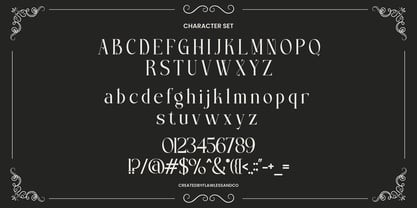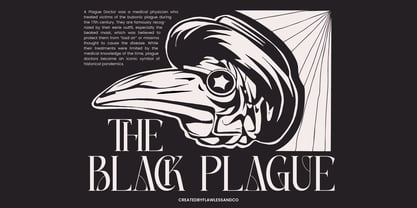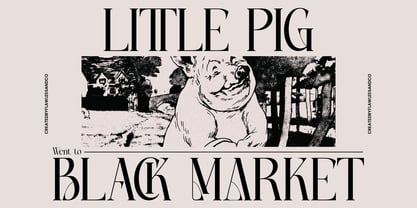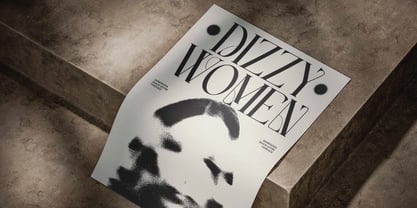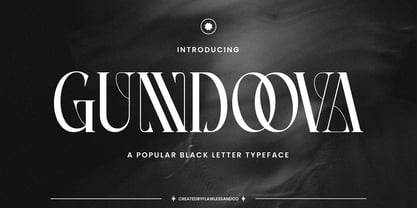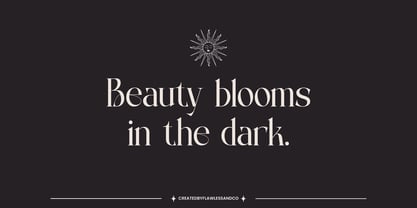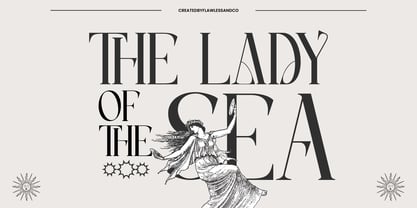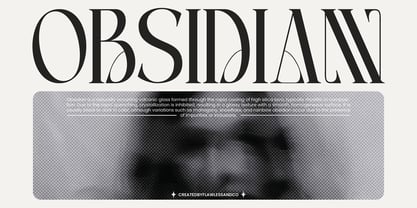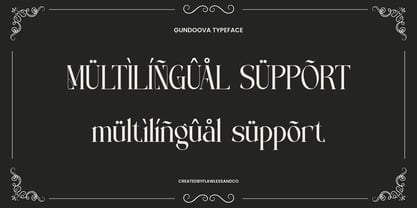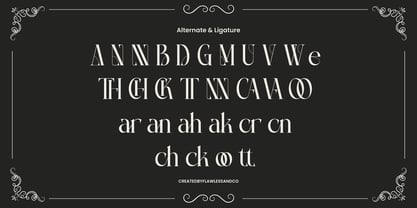
Gundoova
Die Schriftfamilie Gundoova wurde von Achmad Yani entworfen und von Flawlessandco veröffentlicht. Gundoova enthält 1 Stile. Mehr über diese Familie
Gundoova is a fierce and commanding blackletter font rooted in gothic tradition and medieval flair. Crafted with bold strokes, intricate detailing, and sharp serifs, Gundoova channels the power of historic typography into a elegant, contemporary display style. Its dramatic presence and old-world elegance make it perfect for headlines, logos, tattoos, apparel, posters, and anything that craves a sense of dark allure and vintage authority. Whether you’re designing for a heavy metal band, crafting a liquor label, or exploring fantasy-themed branding, Gundoova brings intensity and sophistication in equal measure. The letterforms are carefully balanced to maintain readability while delivering an unmistakable blackletter identity that demands attention.
Features :
Multilingual, Uppercase alphabet A-Z, Lowercase alphabet a-z, Numbers 0-9, Some punctuation, Alternates & Ligatures